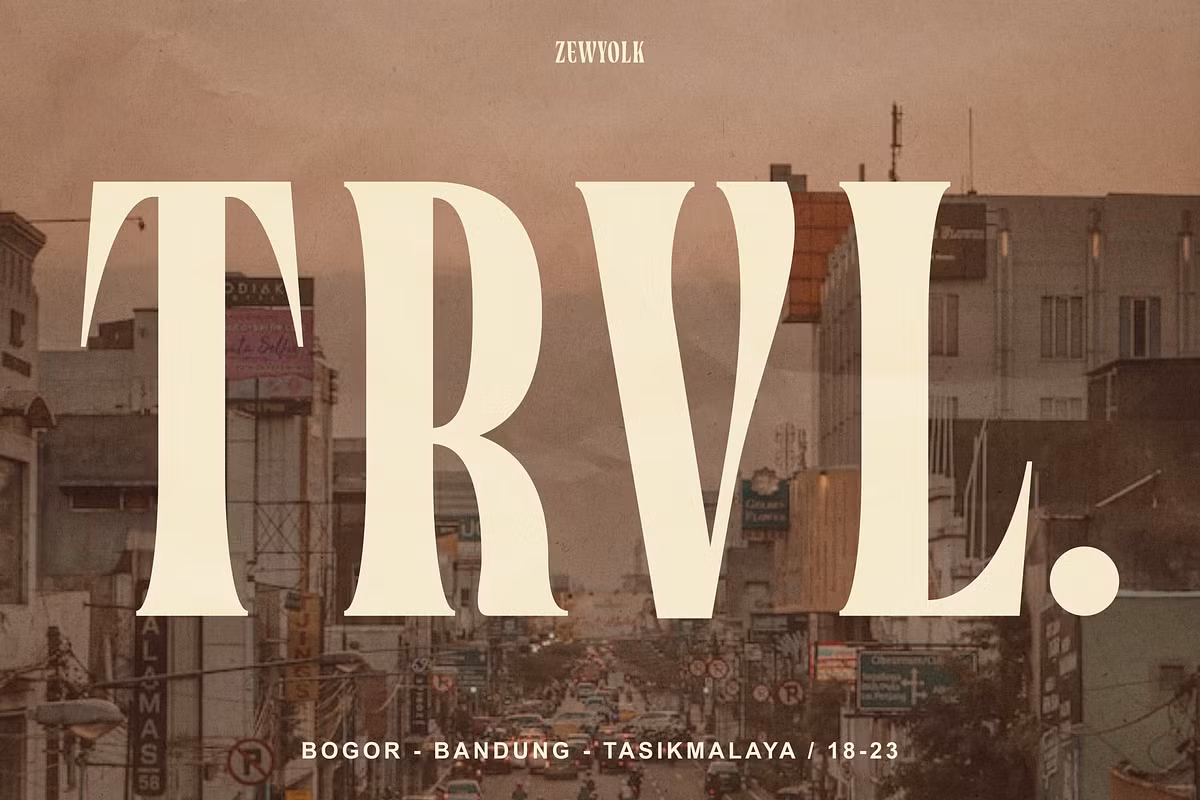
Zewyolk - Bold Condensed Display
Bold Condensed Display Fonts: Make an Impression
Bold Condensed Display Fonts help you raise design projects today.
In the paced design world today standing out matters. You want your projects to catch attention away and to leave a lasting impression. Bold condensed display fonts such as Zewyolk can help you get that look you are aiming for. Bold condensed display fonts are not about looks; bold condensed display fonts raise your designs. Show a professional look. Let us look deeper into the world of condensed display fonts and see how bold condensed display fonts can improve your design projects.
Example of bold condensed display font in use
Bold condensed display fonts like Zewyolk create strong impressions.
What Are Bold Condensed Display Fonts?
Bold condensed display fonts have letters and a strong look. The narrow letters make the fonts tight and easy to see. Bold condensed display fonts work best when the text is large. The fonts give an impact. Stay readable at big sizes. Bold condensed display fonts are perfect for headlines, logos and other big text parts. The fonts let the writer say a lot with letters. Bold condensed display fonts keep the style even when the text is short.
Characteristics of Bold Condensed Fonts
• Narrow Letterforms: The letters in a condensed font sit close together. I notice narrow letterforms let me fit text into a space and the letters stay clear.
• Bold Weight: The weight of the font gives the text strength and visibility. Bold weight makes the text grab attention quickly.
• Modern Aesthetic: When I look at the fonts I see lines and simple designs. The fonts match the look of design trends.
Visual representation of bold condensed font characteristics
Characteristics of bold condensed fonts enhance readability.
Why Choose Zewyolk for Your Design Projects?
I think Zewyolk stands out among the display fonts because Zewyolk has a clean design. Here is why Zewyolk should be the one you pick:
Versatility Across Design Mediums
Zewyolk is very flexible so Zewyolk lets you do jobs. I have used Zewyolk to design a logo, to make a flyer, and to build a website header. Zewyolk fits each job. Zewyolk looks good on the screen and on the page.
Professional Appearance
The Zewyolk font is clean. The clean and simple letters of Zewyolk show professionalism. When you use the Zewyolk font you tell your audience that you value quality and attention to detail. The Zewyolk font matters for brands that want to build trust and credibility.
Zewyolk font used in professional branding
Zewyolk’s clean design enhances professional branding.
Practical Applications of Zewyolk
I have found that when I know where and how to use Zewyolk my design projects improve a lot. Here are some practical ways to use Zewyolk:
Logos and Branding
In my experience logos are often the impression a customer has of a brand. The logo matters. Using Zewyolk in a logo design makes a message. Shows the core of the brand. Zewyolk has a condensed style that keeps the logo readable at sizes. Choose Zewyolk for your logo.
Headlines and Titles
Whether you are designing a magazine cover or an online article I have found Zewyolk makes headlines pop. Zewyolk catches the eye of the reader. Makes the reader want to read the content. Zewyolk works well. When you use Zewyolk for titles you give the rest of the design a feel.
Posters and Promotional Materials
In the materials visibility is key. Zewyolk’s bold look makes sure that the audience sees and remembers your message. I use Zewyolk in posters, flyers or banners. The designs become strong. They grab attention away. Stay in the mind of the viewer.
Promotional materials featuring Zewyolk font
Zewyolk’s boldness is perfect for promotional materials.
Tips for Using Bold Condensed Fonts Effectively
To maximize the impact of bold condensed fonts like Zewyolk, consider the following tips:
• Limit Text Usage: Use condensed fonts for headlines and key phrases rather than long paragraphs to maintain readability.
• Pair Wisely: Combine Zewyolk with a matching font to make a look. I use a serif or a traditional sans serif font with Zewyolk. The traditional serif or traditional sans serif font adds contrast and improves the design.
• Consider Color and Contrast: I make sure the color of your text stands out against the background so the text is easy to read. The color of your text should contrast well with the background. Bold fonts can be striking. Bold fonts need a background to shine.
Conclusion: Transform Your Designs with Zewyolk
Bold condensed display fonts, like Zewyolk are tools for design. The bold condensed display fonts give a professional look. The bold condensed display fonts can lift a project. Make the project stand out in a market. When you learn the traits of Zewyolk and learn how to use Zewyolk you can use Zewyolk to its power. Do not wait. Start adding Zewyolk to a design today. Watch the design turn into a statement.